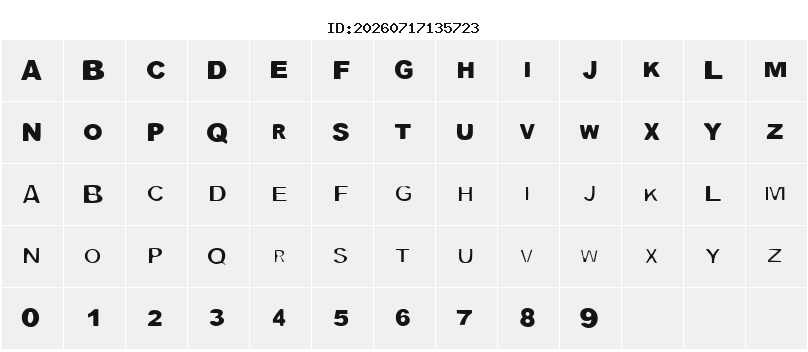
• Font Name: Blockquote
• Designer: Meir Sadan
• Description: Destruction is free. The degeneration process of a brilliant font can be very quick, and fucking fast, too. Blockquote is my favorite HTML tag - in fact, it's implemented all over this website including this very own hypertext document! This particular HTML tag does nothing special but to indent the written paragraph further into the page, so that the reading will be more comfortable. Heavy fonts are beautiful, no? Here is a proof that heavy fonts can be ugly, too.
Blockquote.ttf is a modern, elegant sans-serif font designed for ultimate readability and visual harmony. Perfect for branding, headlines, web design, and print materials.